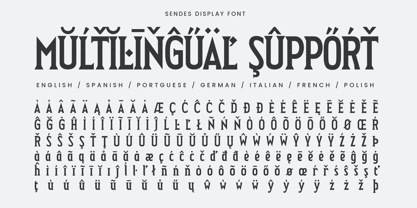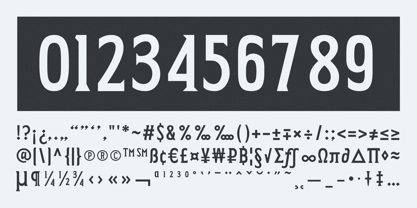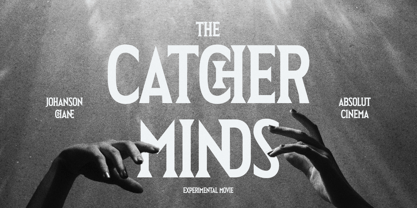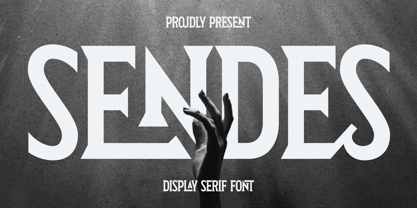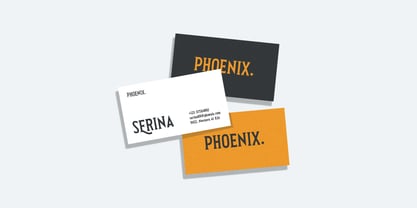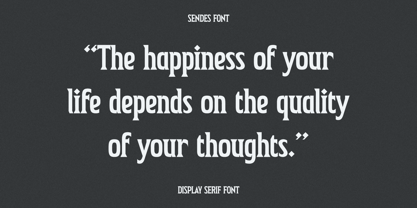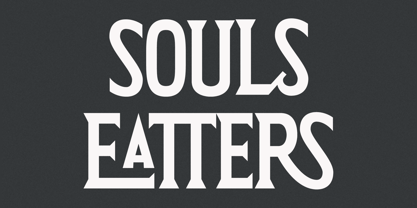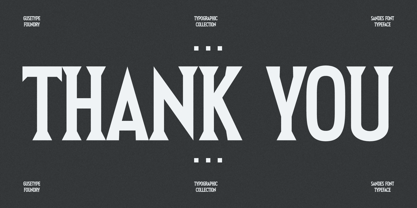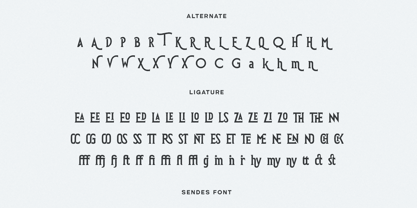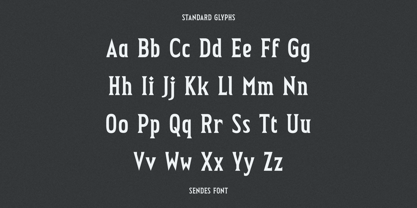
Sendes
The Sendes Font Family was designed by Guntur Septyan and published by GuseType. Sendes contains 1 styles. More about this family
Sendes is a display serif font. With its bold lines and sharp in every edges making it feel strong and elegant in the same time. This font suitable for This font can be used in any various project design like posters, cover albums, banners, magazines, logos, headlines and many more. It seamlessly blends modernity with vintage style touch. Sendes has any features like punctuation mark, multilingual supports, alternate and ligature characters that can stylize your project design.